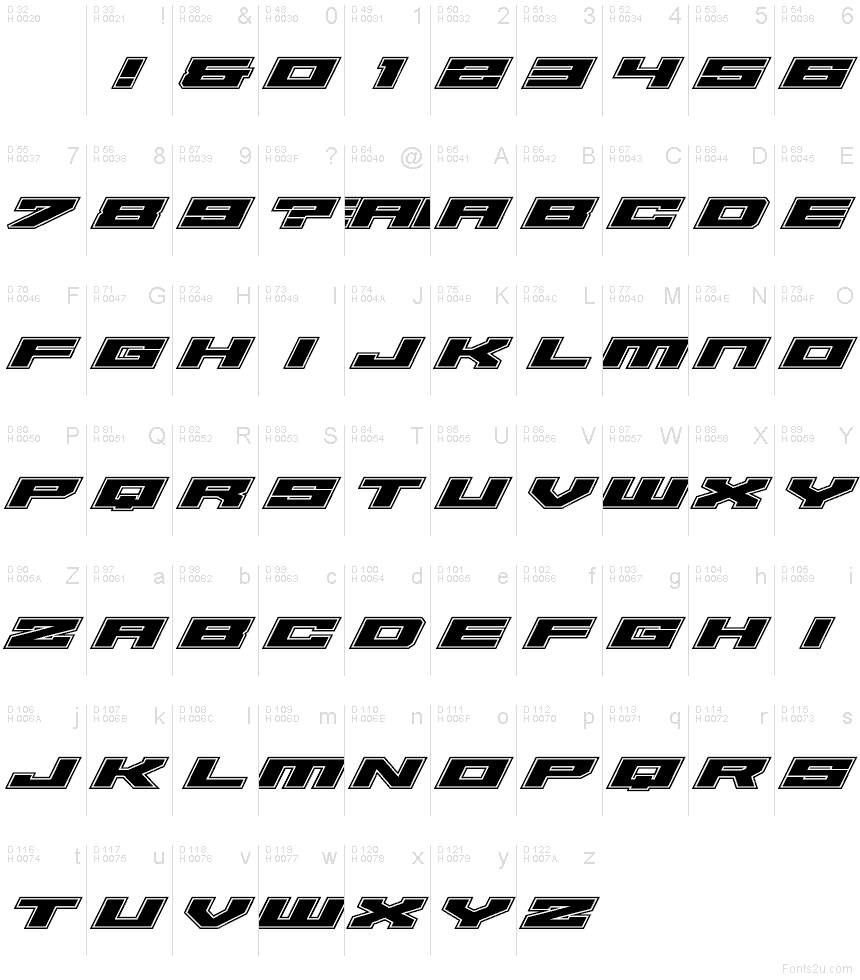
Gear6-Outline
Gear6 Outline font by Youssef Habchi is a free techno racing display font built for velocity. Part of the Gear6 family, its hard-leaning slant, beveled edges, and crisp outline read like bodywork panels slicing air. The inner speed lines add a metallic shimmer, so titles look fast even when standing still, while the tight, blocky forms keep messages punchy at a glance.
Using Gear6 Outline, your pitside graphics, esports banners, car wraps, event posters, energy drink labels, and jersey numbers gain instant track-day attitude. This free font shines on dark backgrounds with high-contrast color hits. Pair it with a neutral condensed sans for specs, and scale it big—the outline gains drama as the size climbs.